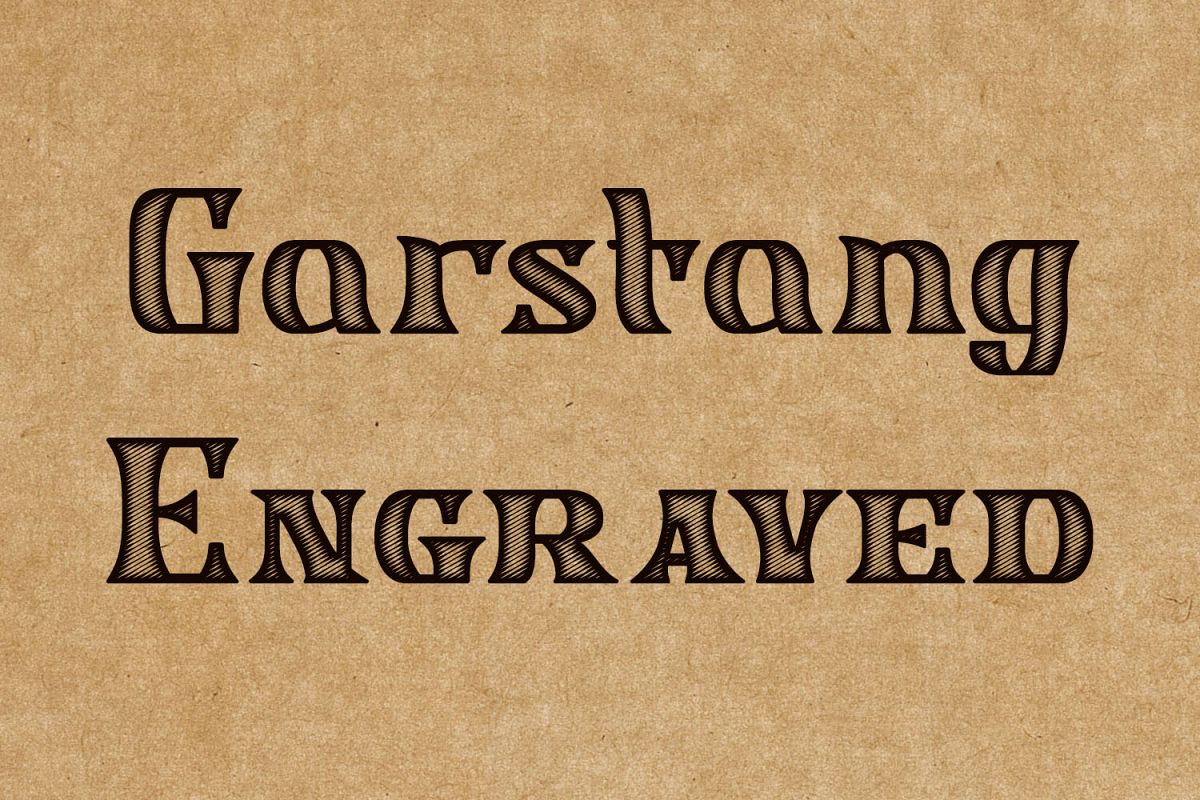
Garstang Engraved
Garstang Engraved is othe latest in Greater Albion 's series of ‘wood type’ inspired fonts. Garstang Engraved is a hand-cut Roman, suggesting the late Victorian era, but the type of thing that continued in use well into the twentieth century. If you want a title face that has versatility and suggests a past history, as well as the art of finely cut wood type, then this is it!
Garstang Engraved